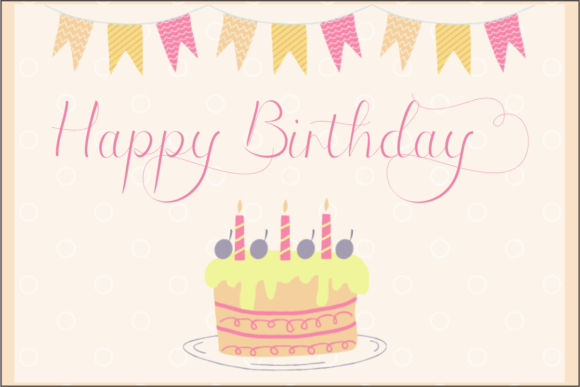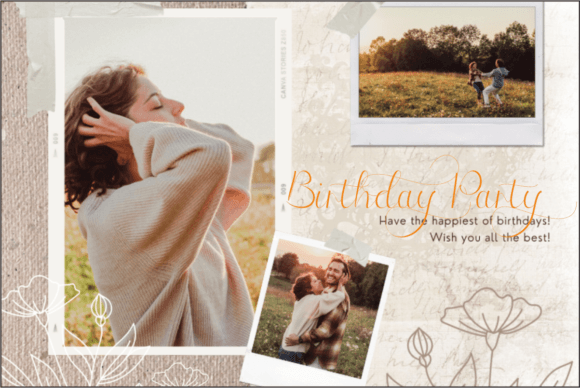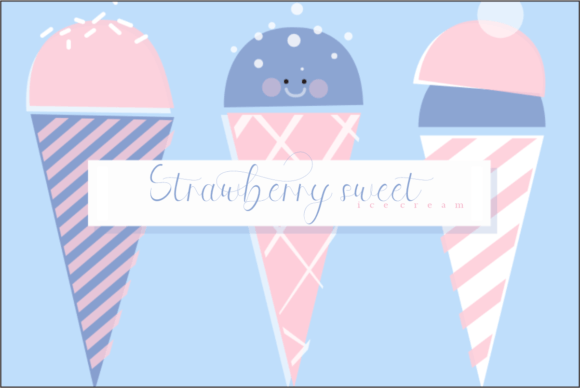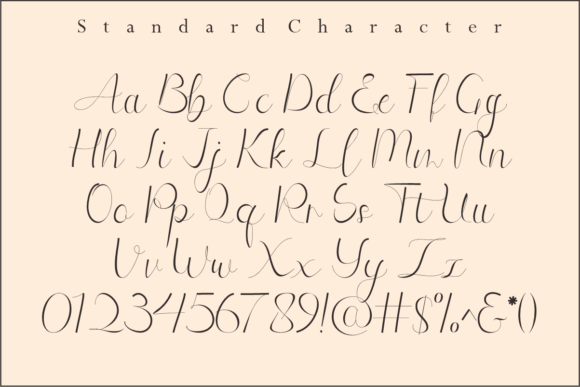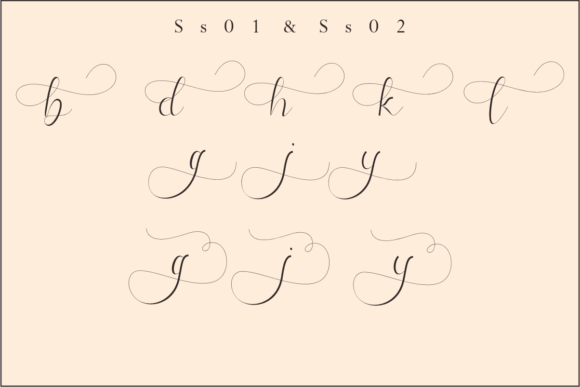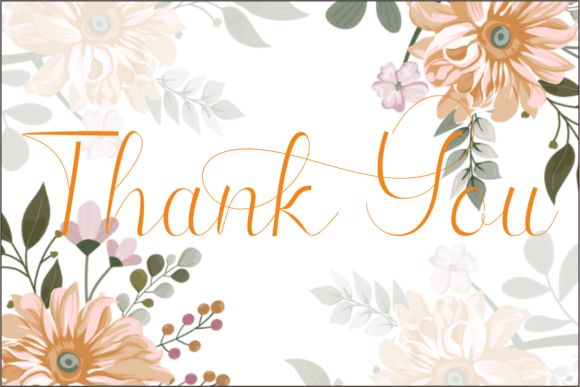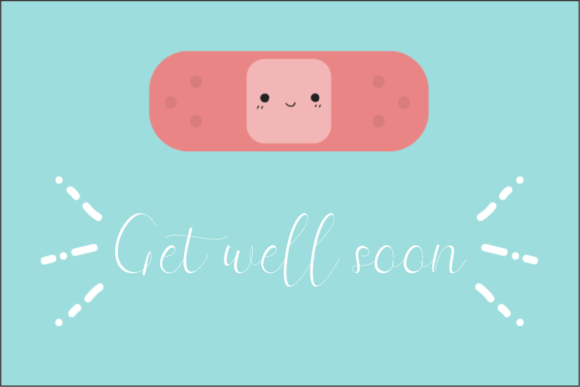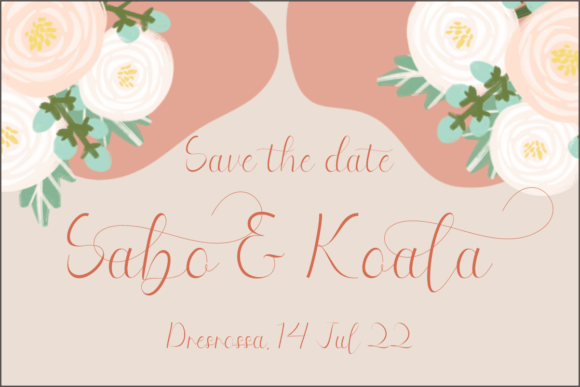
Going Merry Font
About Going Merry Font
Going Merry is a flowing handwritten font that exudes elegance, presenting a captivating style ideal for your favorite projects. Its distinctiveness and timeless appeal make it a font to fall in love with, offering a versatile tool to create spectacular and visually engaging designs.
The flowing script of Going Merry imparts a sense of fluidity and grace to the text, creating a sophisticated and stylish aesthetic. The elegance embedded in each character makes it well-suited for a variety of design applications, from branding materials to invitations, ensuring that your projects radiate a sense of refinement.
The versatility of Going Merry shines through in its ability to adapt to different design contexts, making it a reliable choice for various creative endeavors. Whether you’re working on a classic and formal project or something more contemporary, Going Merry adds a touch of sophistication that elevates the overall visual impact.
As a handwritten font, Going Merry brings a personal and human touch to your text, making it suitable for conveying messages with warmth and charm. Its flowing and timeless style allows it to transcend trends, ensuring that your designs remain relevant and captivating over time.
Embrace the unique characteristics of Going Merry, and let it inspire your creativity to create truly spectacular designs. Whether you’re envisioning elegant invitations, stylish branding, or any other project that demands a touch of sophistication, Going Merry stands ready to add a timeless and captivating flair to your creations.